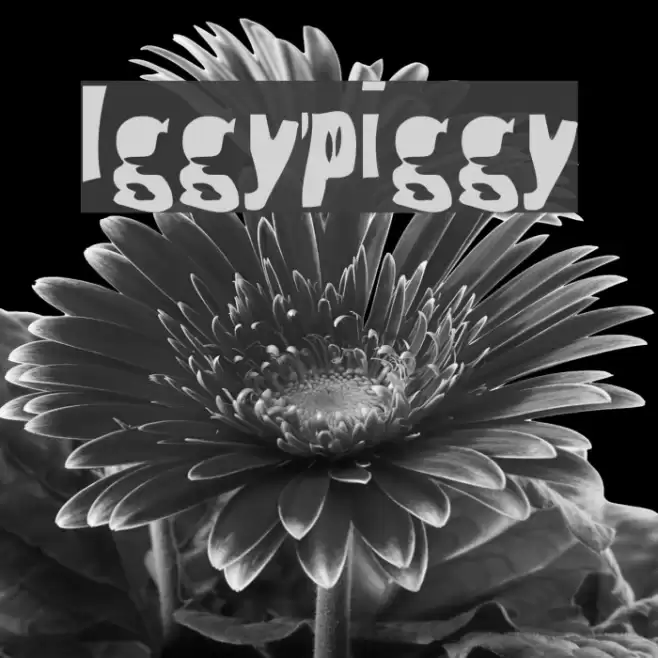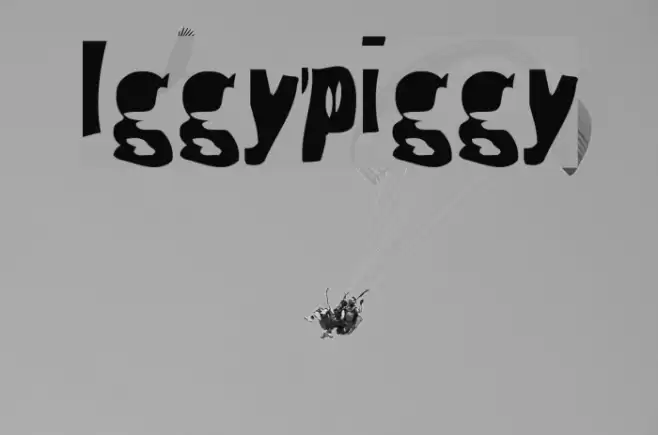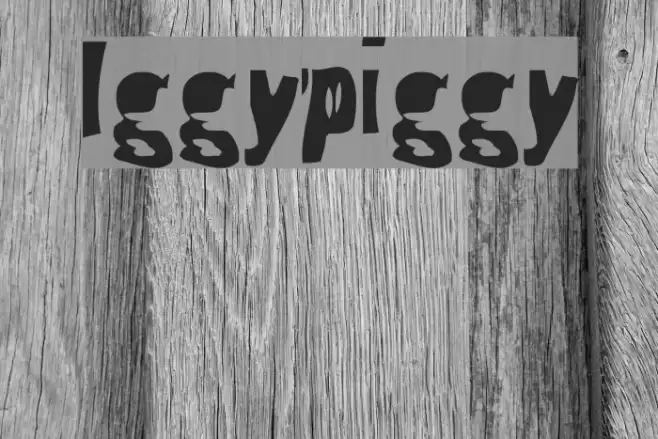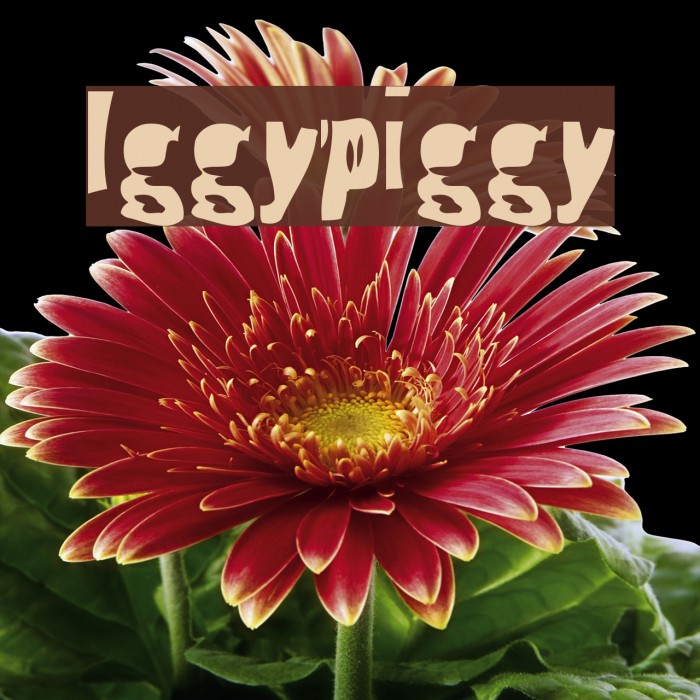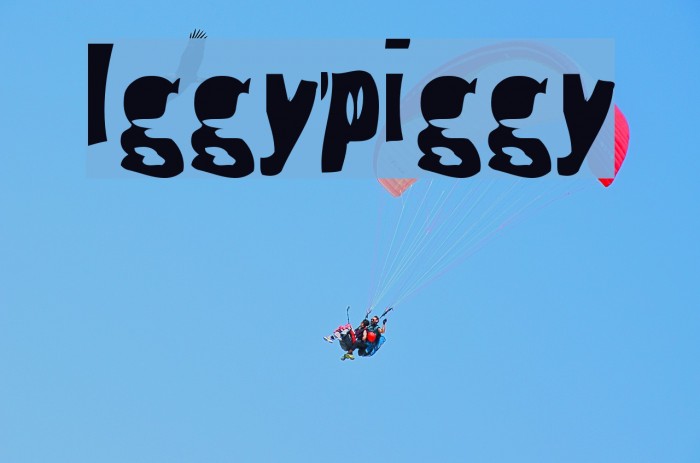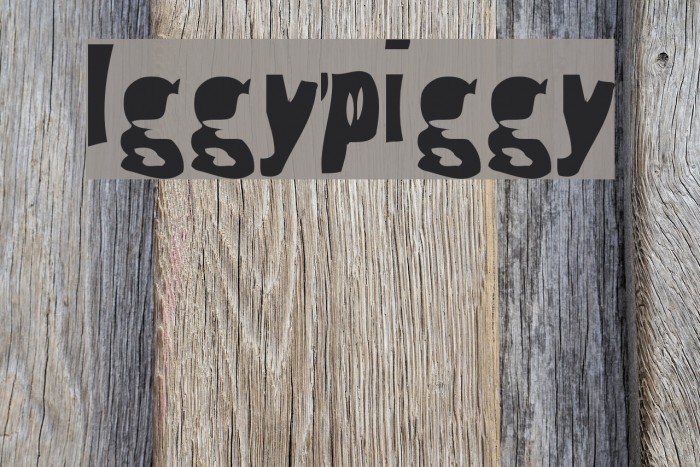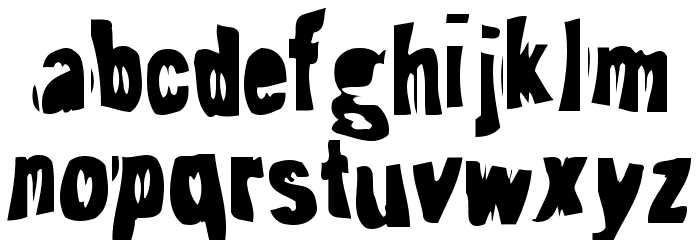
Iggypiggy Font
Iggypiggy Description
This font features a bold and dynamic style with a playful, distorted appearance. The characters exhibit a unique, wavy distortion that gives them a lively and energetic feel. The uppercase and lowercase letters maintain a consistent thickness, contributing to a cohesive look despite the irregular shapes. The font's design is eye-catching and unconventional, making it suitable for creative and informal projects. The overall style is decorative and modern, with a touch of whimsy that sets it apart from traditional typefaces.
A bold, distorted font with a playful and energetic style from Broken fonts.